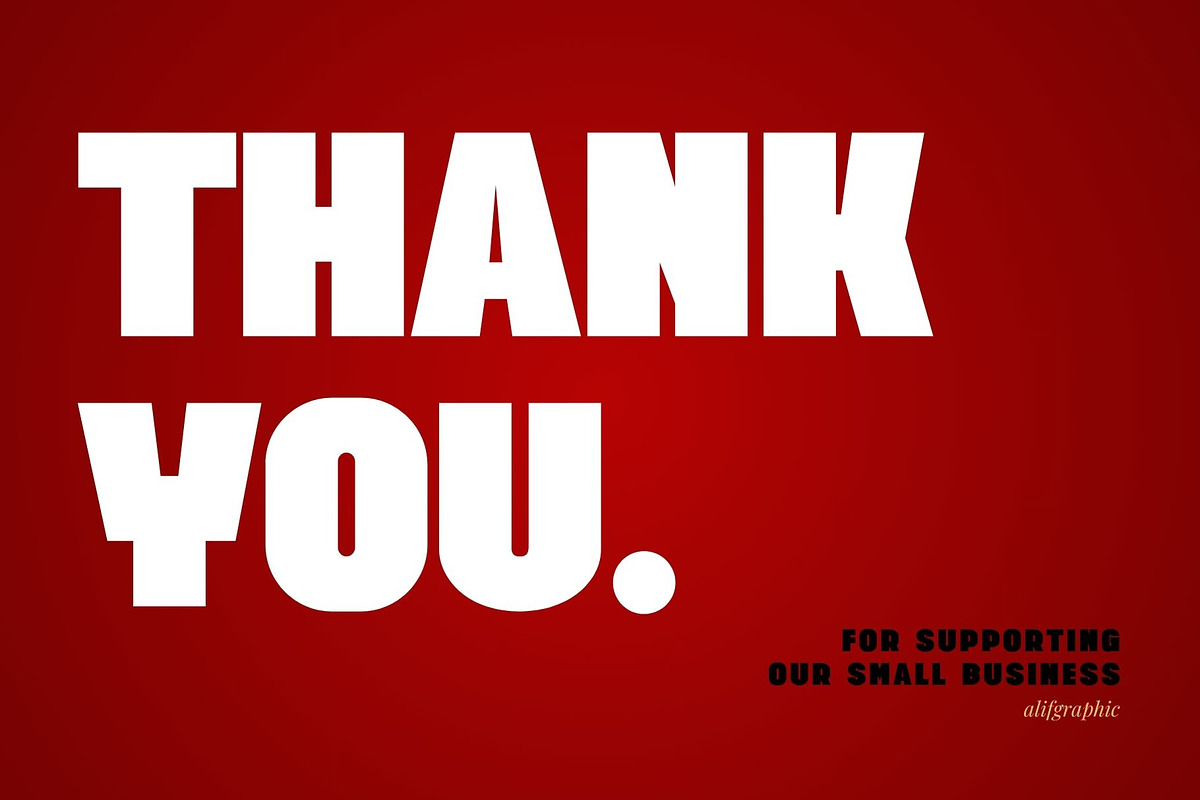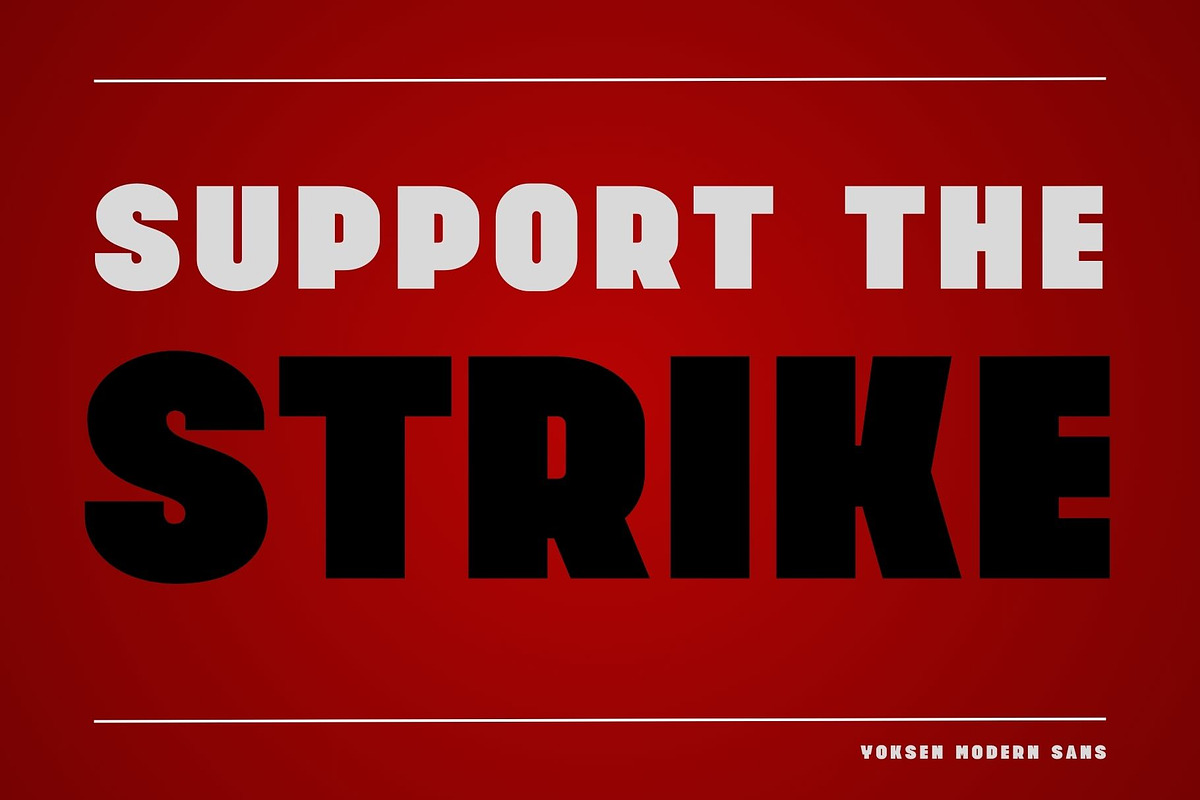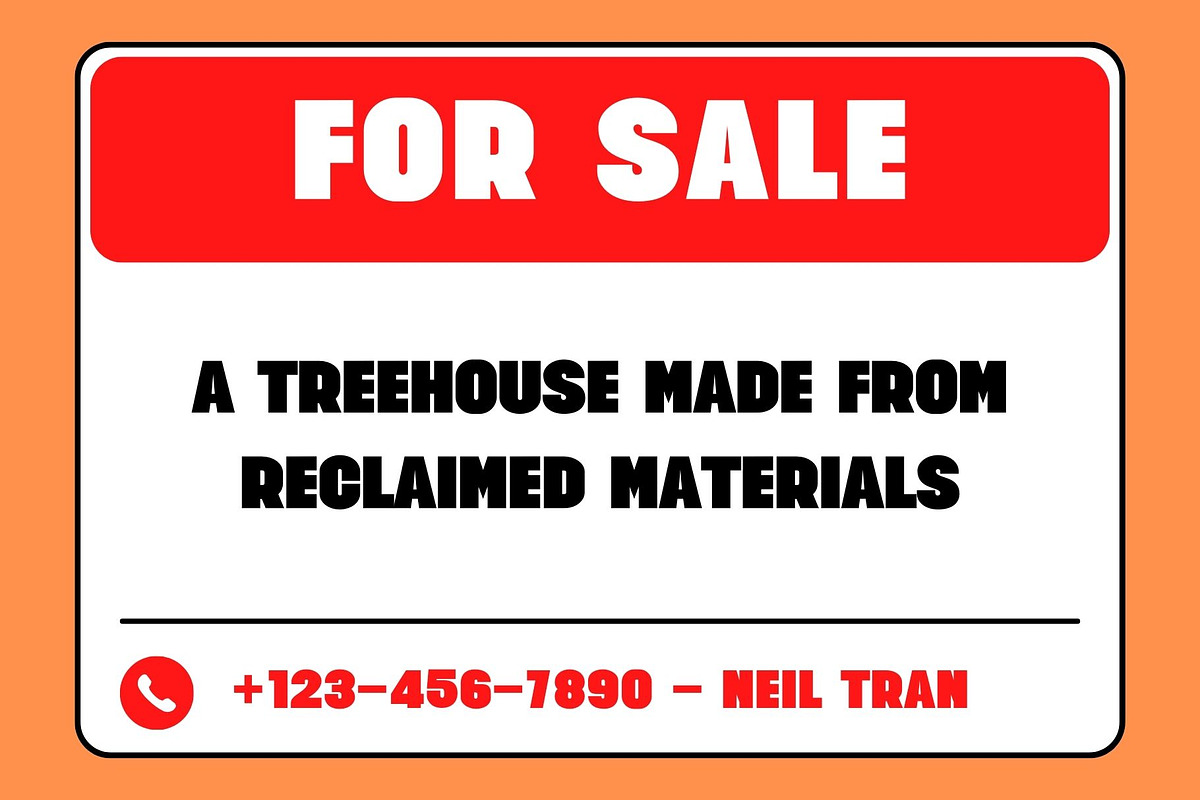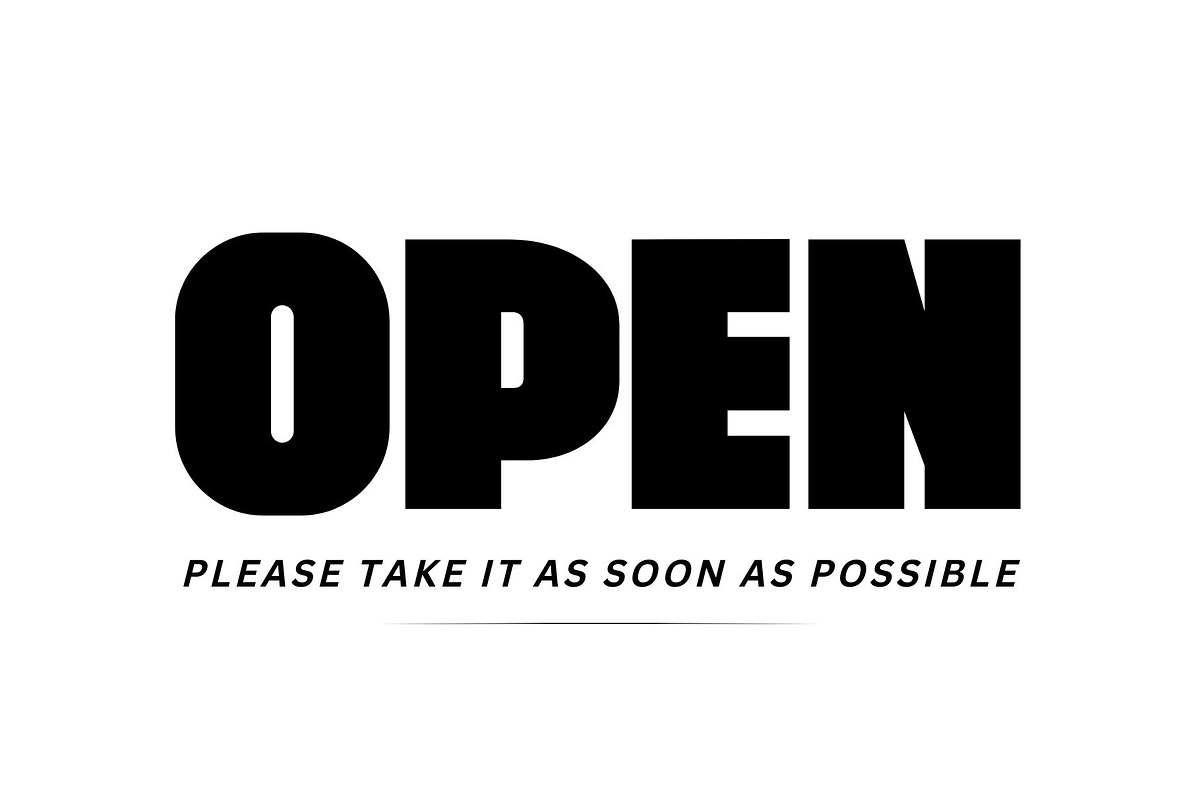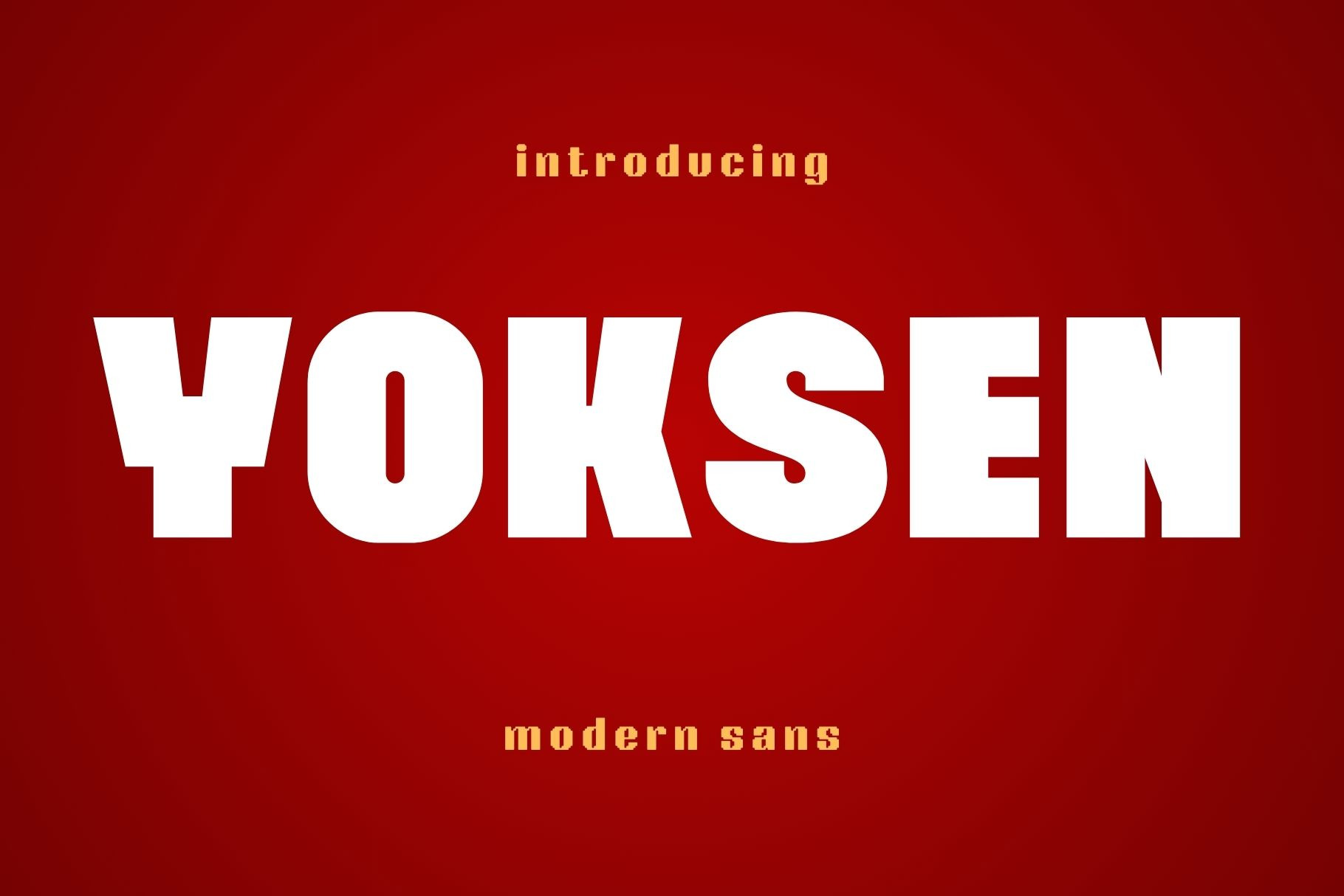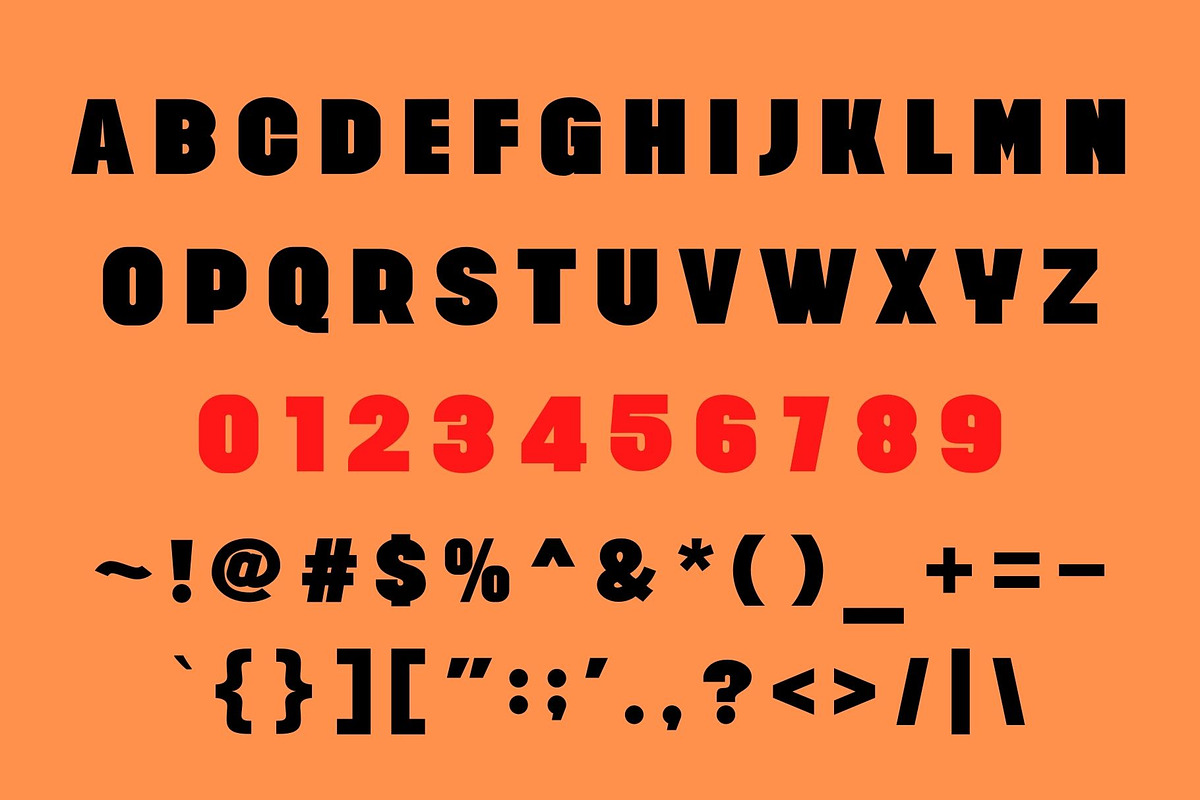
Yoksen - Modern Sans Typeface
Introducing 'Yoksen' Font:
An exquisite font series designed to elevate your creative projects. Immerse yourself in the allure of meticulously crafted letters that strike the perfect balance between modernity and elegance. Our commitment to precision shines through in the creation of each letter, prioritizing immaculate design to guarantee a flawless typographic expression.
Ideal for:
- Modern Designs
- Advertising Campaigns
- Elegant Creations
- Product Development
- Ready for Creative Expression
- Immaculately Crafted Letters